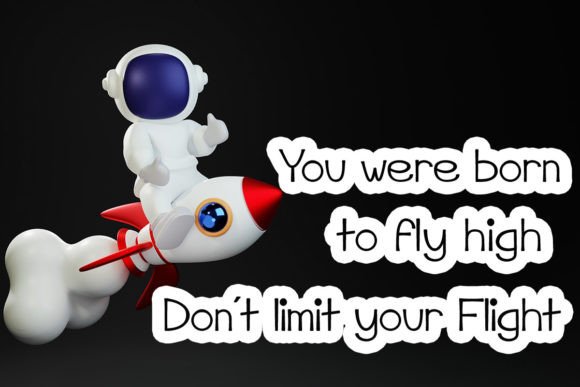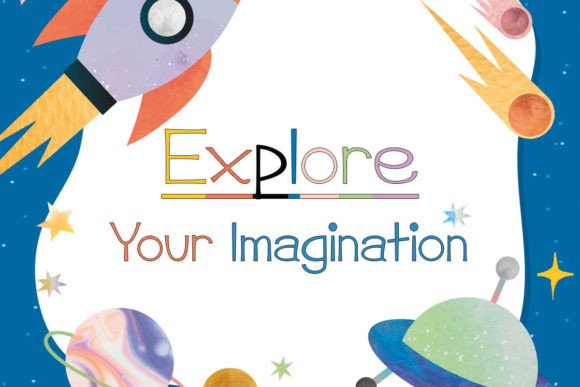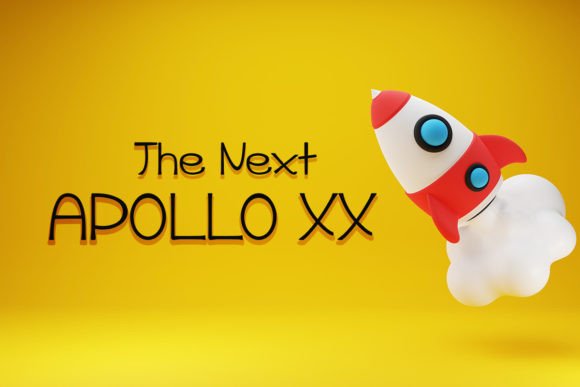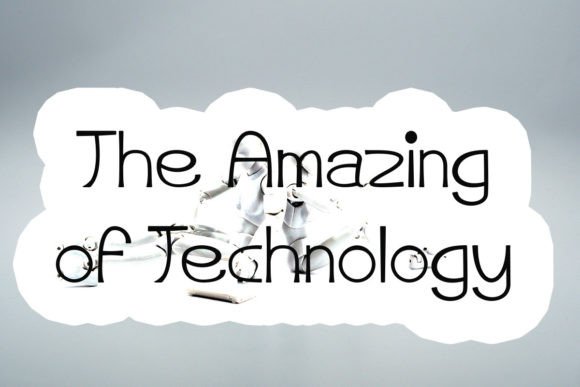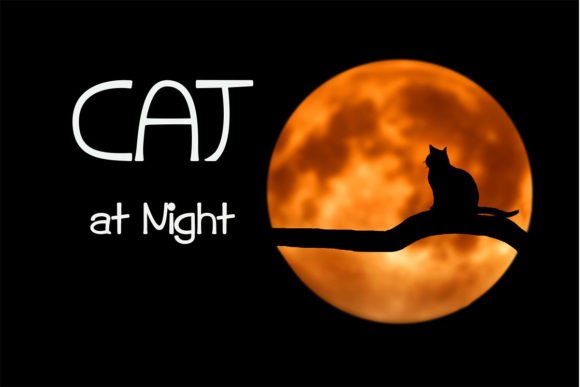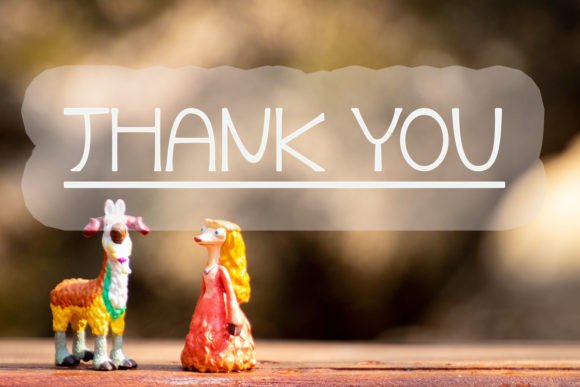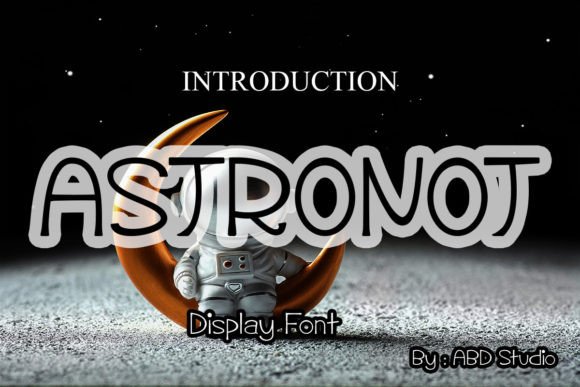
The Astronot Font: A Cosmic Addition to Your Design Arsenal
I’ll never forget the time I was working on a project for a client who wanted a futuristic, out-of-this-world design. I had a clear vision, but there was one thing missing – the perfect font. That’s when I stumbled upon Astronot, a beautiful display font that took my design to new heights. In this article, I’ll share my experience with Astronot, its features, and how to make the most of it in your designs.
A Personal Review of Astronot
- ✨ **Stunning visuals**: Astronot’s sleek, cosmic design makes it perfect for eye-catching headlines and titles.
- ✅ **Versatility**: This font can be used for a wide range of projects, from posters and flyers to logos and branding.
- 💫 **Unique character**: Astronot’s distinct style sets it apart from other fonts, making your designs instantly recognizable.
While Astronot is an amazing font, there are a few things to keep in mind:
- 🤔 **Limited legibility**: As a display font, Astronot may not be the best choice for body text or long paragraphs.
- ⚠️ **Glyph limitations**: Some users have reported issues with certain glyphs or special characters; however, this can be addressed with OpenType features.
The Story Behind Astronot
Astronot was designed with the intention of capturing the essence of space exploration and the cosmos. Its creator drew inspiration from vintage astronaut badges, celestial maps, and the typography of old sci-fi movies. The result is a font that’s both nostalgic and futuristic, perfect for designers looking to add a touch of the extraordinary to their work.
Q: What type of projects is Astronot best suited for?
A: Astronot is ideal for display-heavy projects, such as posters, flyers, logos, and branding materials.
Q: Is Astronot a script font?
A: No, Astronot is a display font with a sans-serif design.